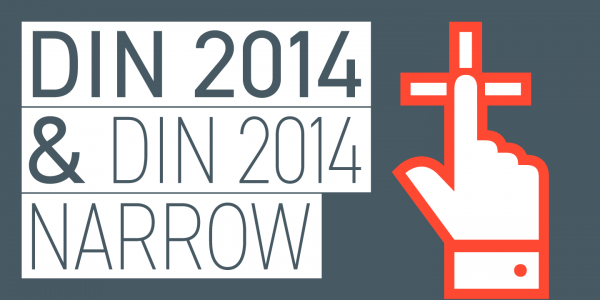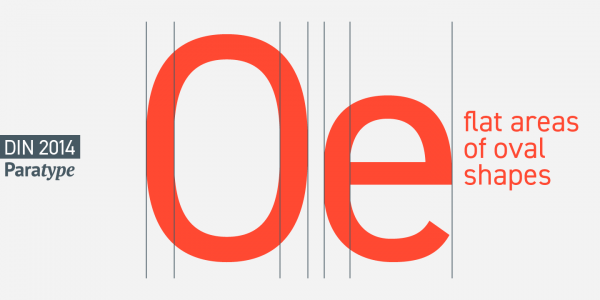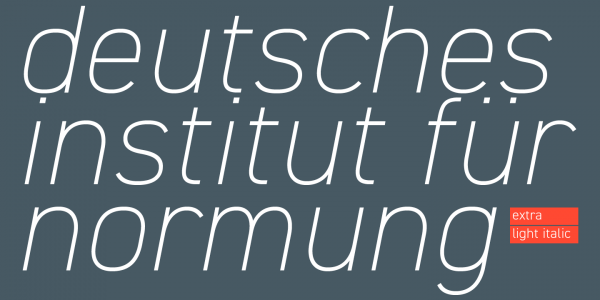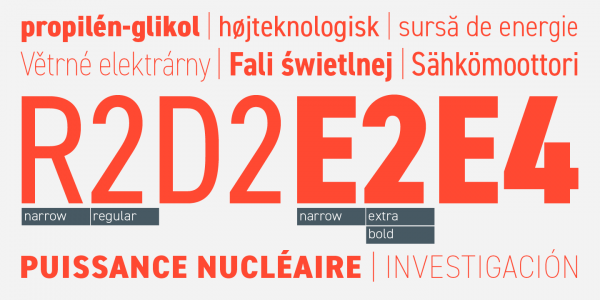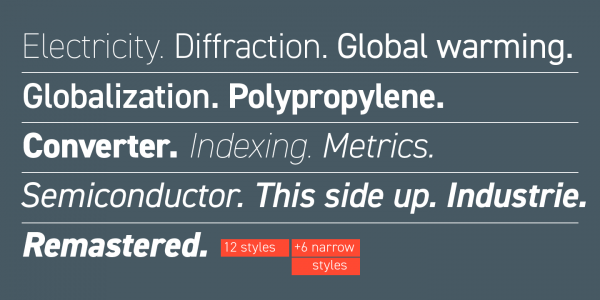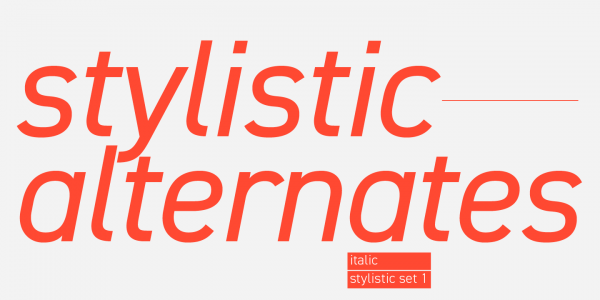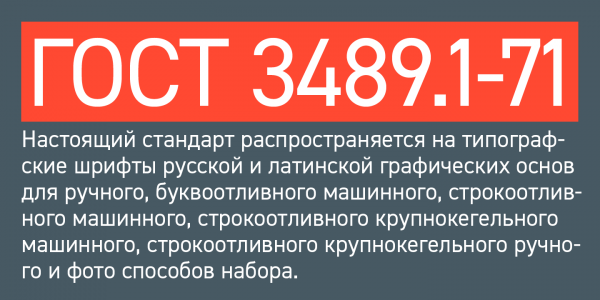
Discover ParaType’s DIN 2014 font family!
Vasily Biryukov, a Russian type designer of foundry ParaType has created his very own version of the famous DIN typeface. The DIN 2014 font family is a modern sans serif consisting of 18 faces (6 uprights with matching italic versions plus 6 narrow styles). The Regular and Demi Bold versions perform very well in small and long texts, while its Light and Extra Light as well as Bold and Extra Bold versions are a great fit for headlines.
The DIN 2014 font family supports multiple languages including all European languages. As it should be for a typeface by a Russian designer, the DIN 2014 font family also includes Cyrillic letters. The beautiful sans serif is also equipped with numerous OpenType features such as ligatures or stylistic alternates. The family is a great workhorse for a variety of projects. Its simple and clean geometric design as well as its well kerning result in a very legible typeface. You can get it as both common desktop font as well as webfont. For further information I recommend you to follow the link below.